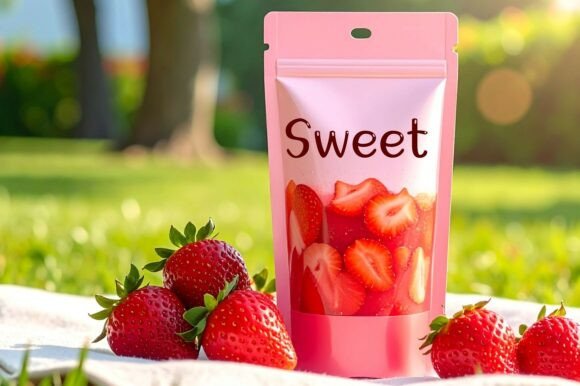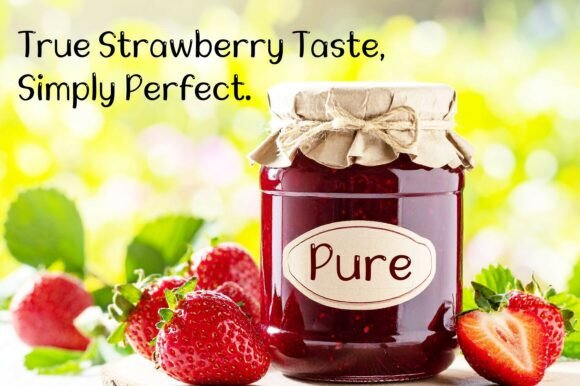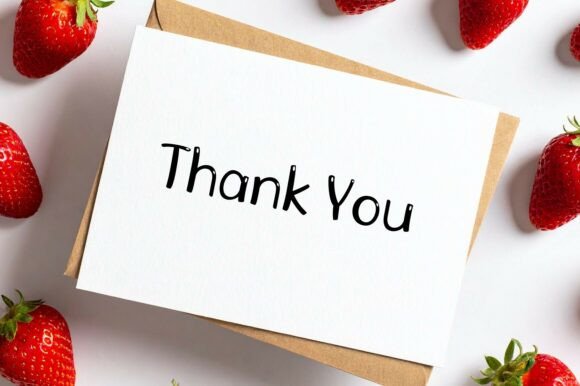
Introducing Arbei Berry: The Sweet and Playful Display Font
Are you looking for a font that captures the whimsical essence of freshly picked berries? Look no further than Arbei Berry, a sweet and playful display font that’s perfect for conveying warmth and deliciousness. In this article, we’ll dive into the unique features of Arbei Berry and explore how it can elevate your design projects.
The Inspiration Behind Arbei Berry
Arbei Berry is a handcrafted font that features charming, slightly irregular letterforms with a joyful, organic aesthetic. The font’s rounded edges and friendly appearance evoke a sense of natural sweetness and lightheartedness, making it perfect for projects that require a cheerful, natural, and inviting tone.
Key Features of Arbei Berry
Arbei Berry includes a complete set of uppercase and lowercase letters, numerals, and essential punctuation, all designed to maintain its unique, endearing quality. The font’s key features include:
- Charming, slightly irregular letterforms with a handcrafted feel
- Rounded edges and friendly appearance for a natural, sweet look
- Complete set of uppercase and lowercase letters, numerals, and essential punctuation
- Unique, endearing quality that’s perfect for conveying warmth and deliciousness
Perfect for Food and Beverage Branding
Arbei Berry is ideally suited for food and beverage branding projects, such as packaging and labels. Its sweet and playful design makes it perfect for products like jams, honey, and other sweet treats. For example, ‘Sweet’ packaging and ‘Pure’ jam labels would be elevated by the use of Arbei Berry, adding a touch of whimsy and charm to the design.
Great for Children’s Products and Organic Markets
Arbei Berry is also great for children’s products and organic markets. Its cheerful and natural design makes it perfect for products like kids’ toys, educational materials, and organic food products. The font’s friendly appearance and rounded edges create a sense of approachability and warmth, making it perfect for brands that want to convey a sense of friendliness and approachability.
Adding a Personal Touch to Your Designs
Arbei Berry is not just a font, it’s a way to add a personal touch to your designs. Whether you’re creating a vibrant title or a charming ‘Thank You’ note, Arbei Berry brings a lovely, approachable, and irresistible charm to your work. The font’s handcrafted feel and unique letterforms make it perfect for designers and crafters who want to add a touch of personality to their designs.
Tips for Using Arbei Berry
Here are some tips for using Arbei Berry in your design projects:
- Use Arbei Berry for headlines and titles to add a touch of whimsy and charm
- Pair Arbei Berry with a clean, sans-serif font for a contrasting look
- Experiment with different colors and textures to enhance the font’s natural, sweet look
- Use Arbei Berry for packaging and labels to add a personal touch
Arbei Berry is a sweet and playful display font that’s perfect for designers and crafters who want to add a touch of whimsy and charm to their work. With its charming letterforms, rounded edges, and friendly appearance, Arbei Berry is ideally suited for food and beverage branding, children’s products, organic markets, and any creative work that aims for a fresh, homemade, and delightful appeal. Try Arbei Berry today and bring a little sweetness to your designs!